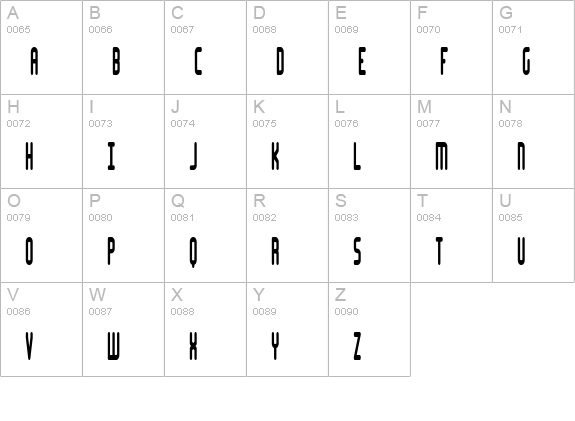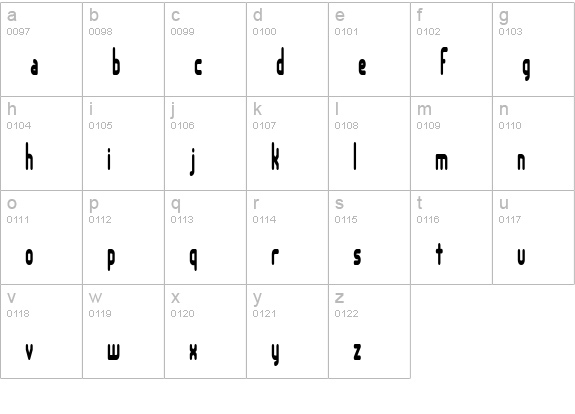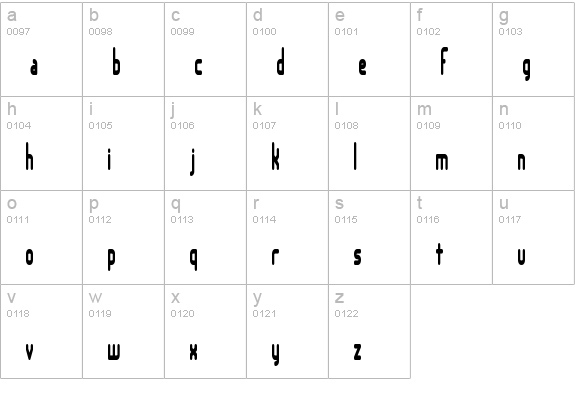
Lakeshore BRK Font Details
Lakeshore BRK font is a stunning display typeface that effortlessly combines elegance with a touch of modernity. Its graceful curves and strong, bold lines make it a perfect choice for headlines, logos, and any design project that requires a powerful visual impact. This versatile font offers a wide range of uppercase and lowercase characters, numerals, and punctuation marks, ensuring that you have all the tools you need to bring your creative visions to life. Whether you are designing a magazine layout, creating eye-catching social media graphics, or crafting a unique branding identity, Lakeshore BRK font will elevate your work to new heights. What makes Lakeshore BRK font even more appealing is the fact that it is available for free download at FontsMarket.com. Yes, you read that right - this extraordinary font can be yours without spending a dime. Simply head over to FontsMarket.com and unleash your creativity with Lakeshore BRK font. With its impeccable design and ease of use, Lakeshore BRK font is a must-have for designers, artists, and anyone in need of a high-quality typeface. Its sleek and modern aesthetic will captivate your audience, leaving a lasting impression. Download Lakeshore BRK font today and experience the freedom of creating stunning designs that will stand out from the crowd. Don't miss out on this incredible opportunity to enhance your creative projects with a font that combines elegance, versatility, and the best part - it's free!